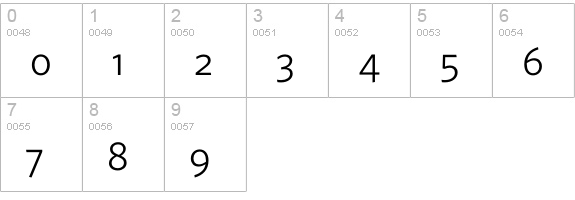
Whitney-BookSC Font Details
Introducing Whitney-BookSC, a stunningly crafted font that exudes elegance and sophistication. With its sleek and modern design, Whitney-BookSC is perfect for any project that requires a touch of professionalism. This versatile font offers a unique combination of clean lines and subtly rounded edges, creating a harmonious balance that is pleasing to the eye. Whether used for body text or headlines, Whitney-BookSC effortlessly conveys a sense of clarity and readability. But what sets Whitney-BookSC apart is not just its aesthetic appeal. It is also a font that is freely available to download at FontsMarket.com. This means that you can now elevate your designs and bring them to life without any cost or limitations. With Whitney-BookSC, you have the freedom to explore your creativity and unleash your imagination. Whether you're working on a personal project or a professional endeavor, this font is here to empower you. So why wait? Discover the beauty of Whitney-BookSC today, and let it become your trusted companion on your creative journey. Download it for free at FontsMarket.com and witness how this font transforms your designs into works of art.